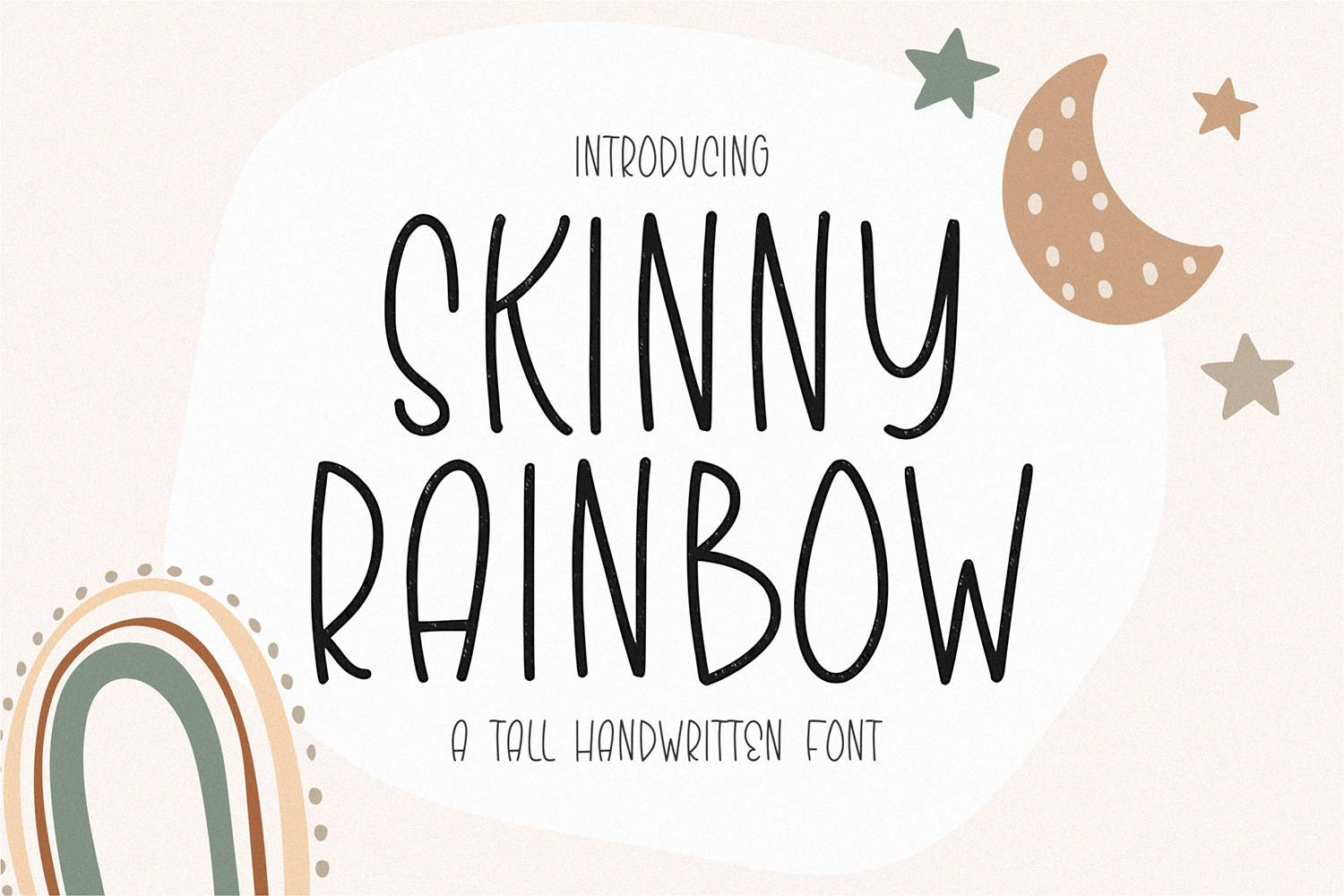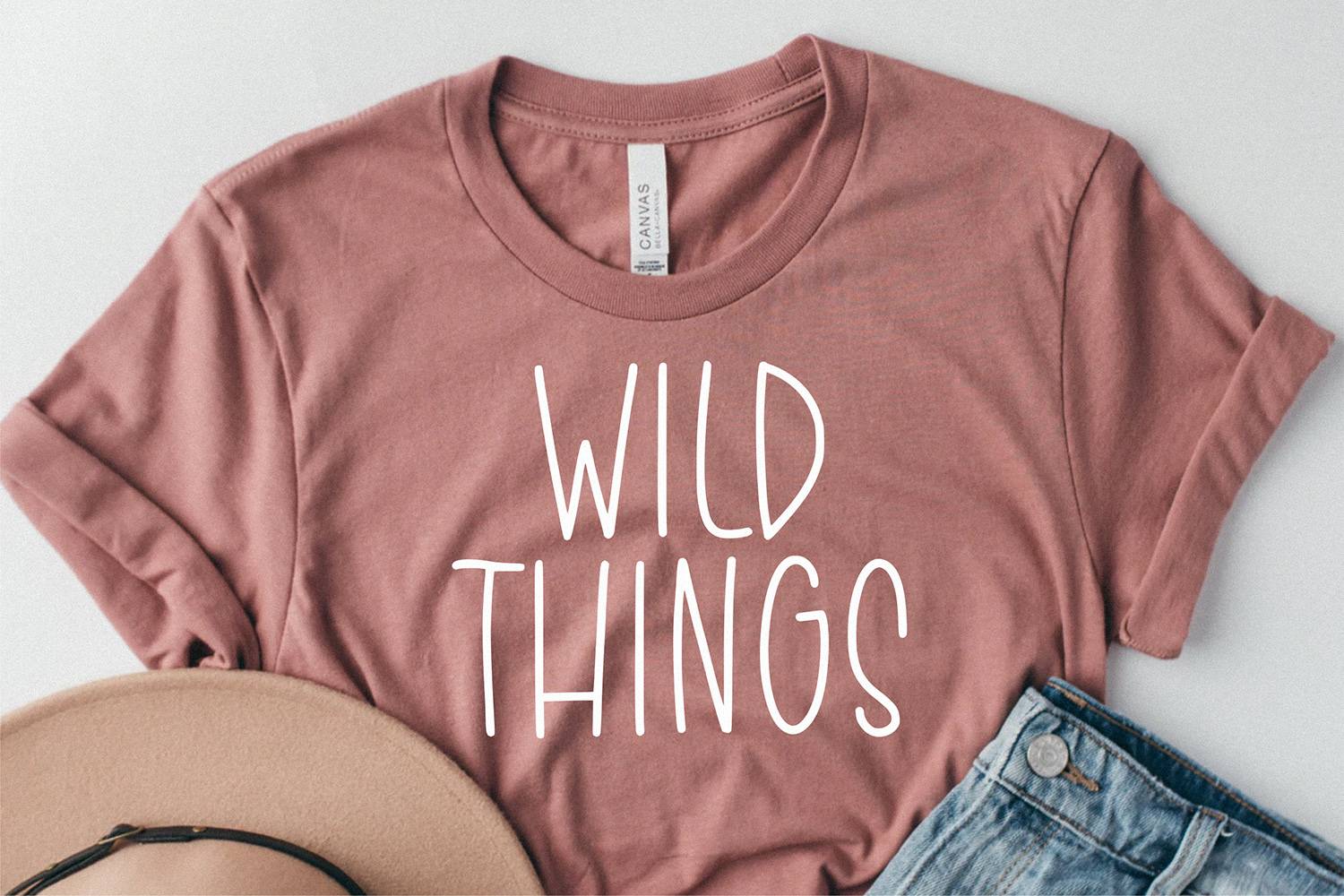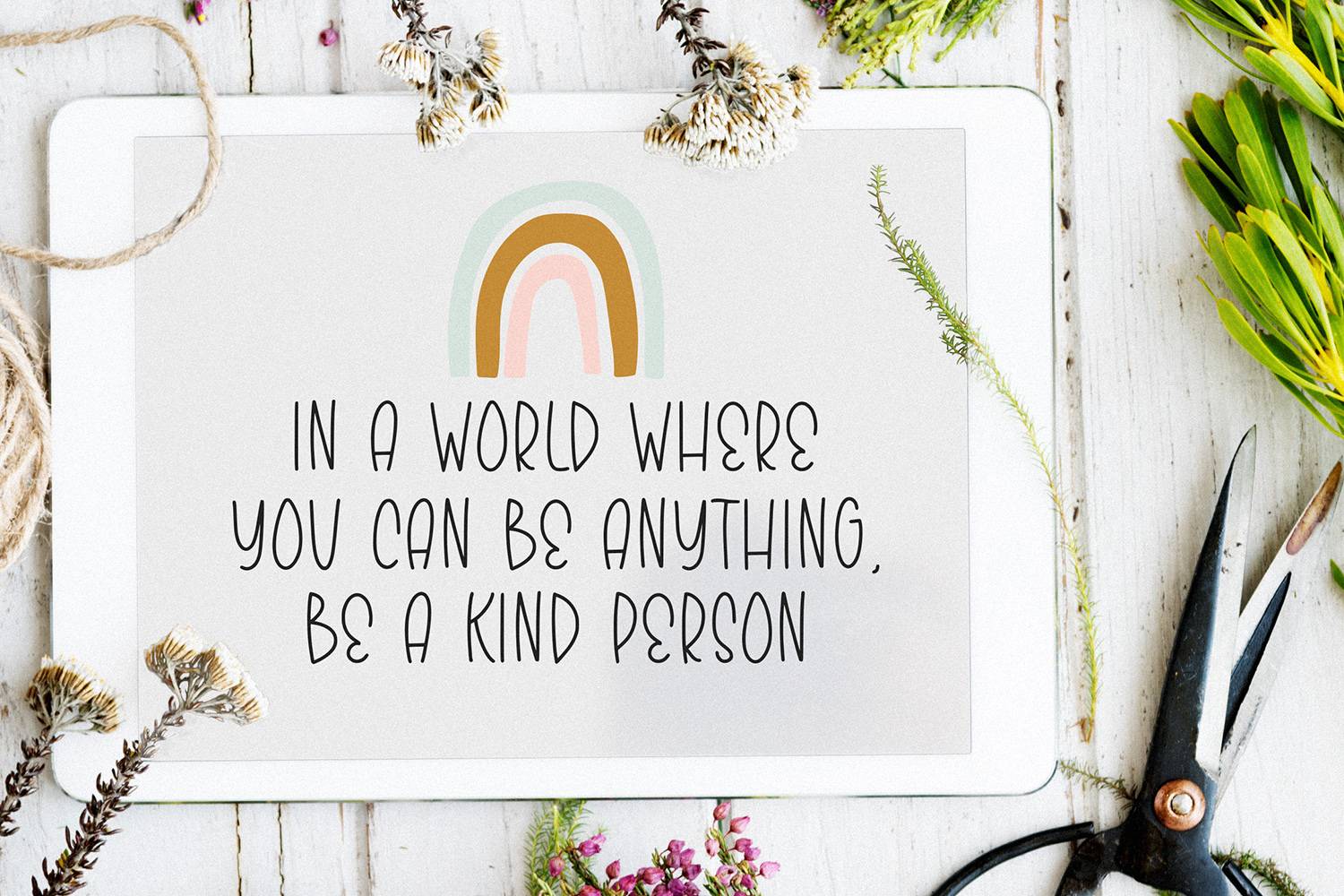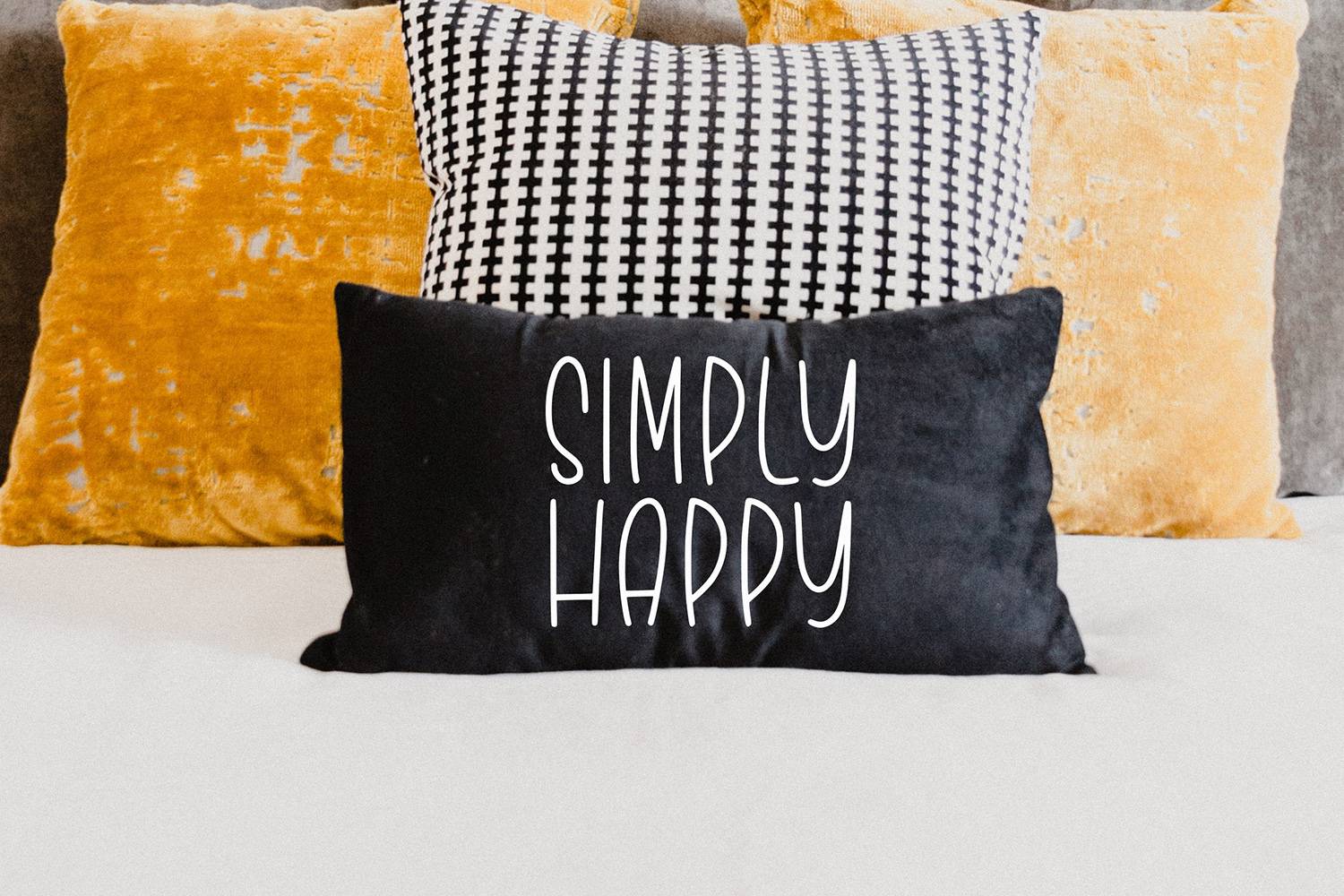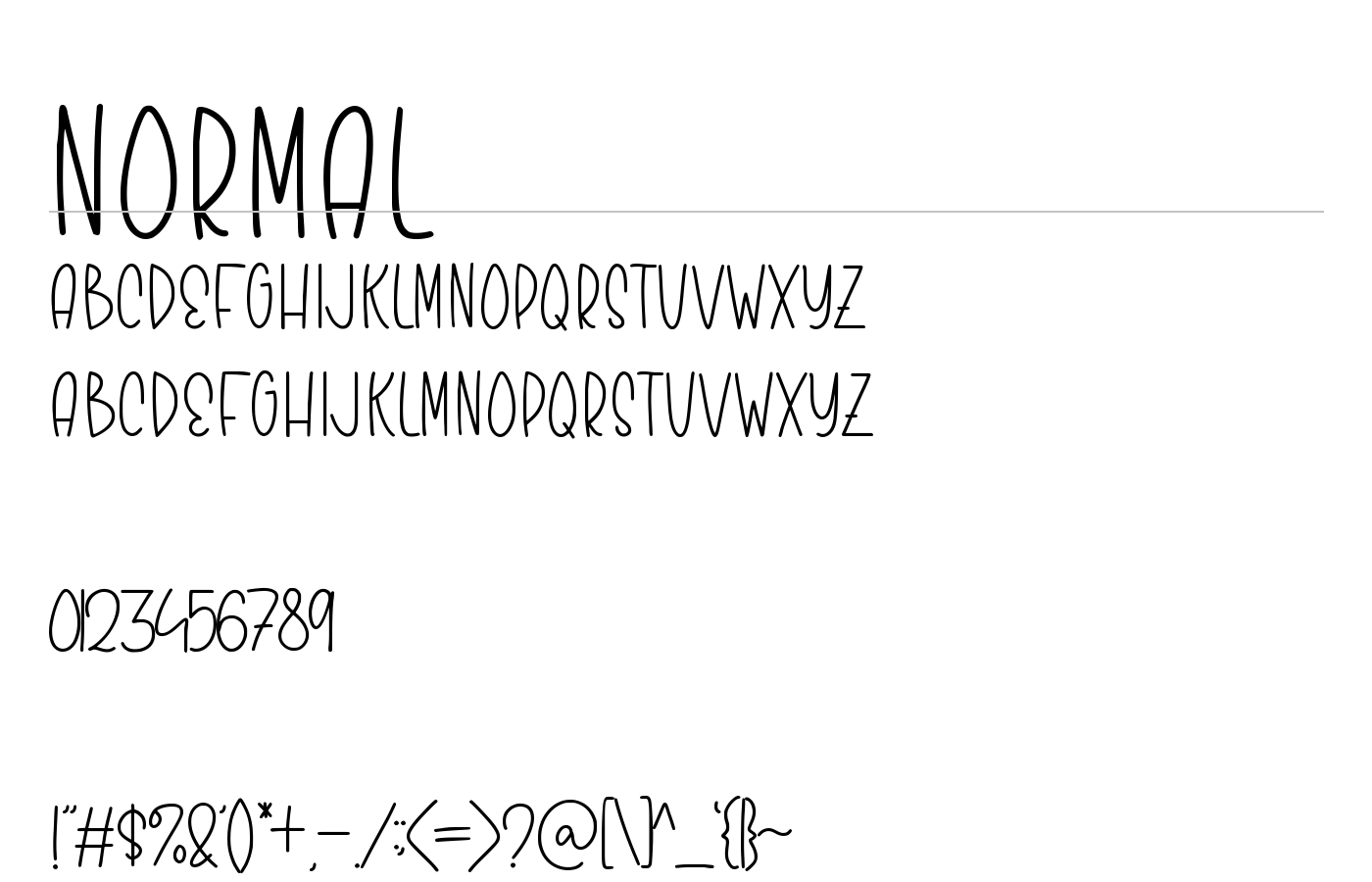
Skinny Rainbow is a playful and narrow sans serif font characterized by its tall, skinny letterforms with a hand-drawn, casual feel. It features high x-height, single-story letters, and smooth, slightly irregular strokes that give it an approachable and lively personality, making it ideal for fun branding, headlines, and creative projects that want a unique, informal touch. This font works especially well for designs aiming to communicate friendliness and whimsy, such as children’s products, artistic posters, and event invitations.
Skinny Rainbow Font
About Skinny Rainbow Font